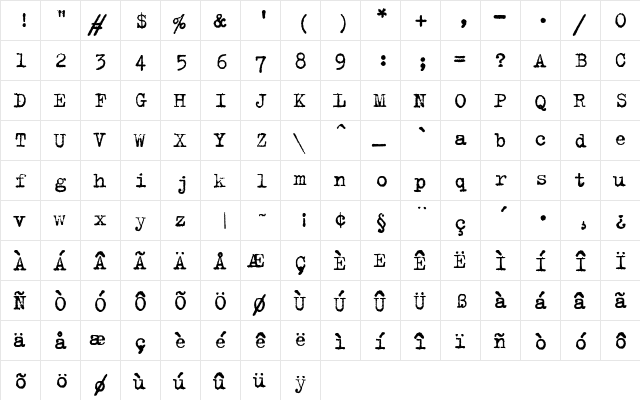
TrixiePlain Regular
Design Context for TrixiePlain Typeface
TrixiePlain is a composed and adaptable typeface that performs quietly and consistently across a wide range of design contexts.